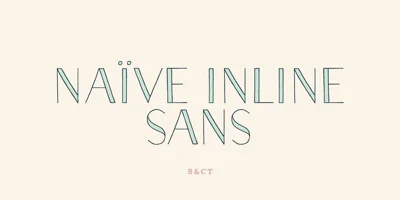
Naive Inline Sans Font
Naive Inline Sans Font excels in innocent children's branding, playful educational materials, simple craft project designs, honest small business communications, unpretentious startup logos, charming handmade product labels, wholesome family marketing, sincere community messaging, authentic local business signage, and genuine grassroots campaign graphics. Its innocent character makes it perfect for projects requiring unaffected simplicity and honest visual appeal that celebrates authenticity and straightforward communication.
What makes Naive Inline Sans Font exciting is its refreshing embodiment of genuine innocence and unaffected charm through clean inline letterforms that capture the honest beauty of simple, straightforward design. The font features gentle curves with naive proportions that convey sincerity and approachability while maintaining excellent readability for honest communications. Its innocent character transforms ordinary text into expressions of genuine authenticity that resonate with audiences seeking honest, unpretentious communication in an increasingly complex world.
The Naive Inline Sans Font family includes Regular, Bold, Light, Simple, Honest, Genuine, and Innocent variations. Each style preserves the font's naive essence while offering different levels of simplicity and authentic weight for creating honest design graphics. The comprehensive character set includes simple symbols, innocent ornaments, honest decorations, and genuine glyphs essential for authentic community and family-focused typography projects.
Small businesses and authentic brands consistently choose Naive Inline Sans Font for projects demanding genuine innocent typography solutions. The font's honest character instantly establishes authentic credibility while ensuring clear communication across sincere marketing channels. Its versatility spans from subtle innocent touches to bold statements that celebrate the beauty of simplicity and the power of honest communication in building genuine human connections.
Whether you're developing authentic brand identities, creating honest marketing materials, or designing sincere communications, Naive Inline Sans Font provides the perfect combination of innocent authenticity and contemporary functionality. The font's simply crafted letterforms ensure genuine naive character while maintaining excellent performance across various community applications and honest business communications.
The authentic heritage of Naive Inline Sans Font makes it exceptional for creating trustworthy connections with audiences who value honesty and genuine simplicity. Its innocent precision and sincere appeal work seamlessly across traditional community materials and modern digital authentic platforms. The font performs honestly in both large-scale simple displays and intimate genuine communications.
Embrace honest simplicity with Naive Inline Sans Font and discover how authentic innocent typography can enhance your sincere projects with genuine naive appeal and honest sophistication. This remarkable typeface combines innocent tradition with contemporary functionality, making it indispensable for brands celebrating the beauty of simplicity and the power of genuine, unaffected communication in building authentic relationships.